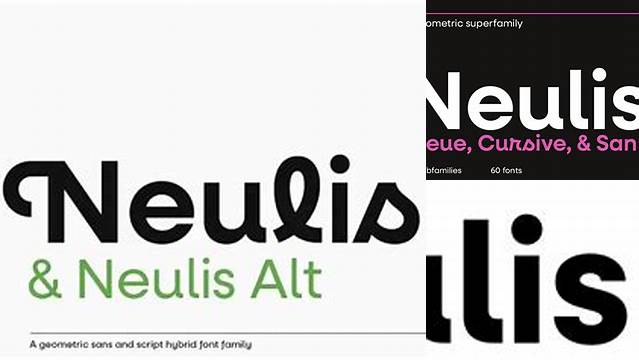
1. What is Neulis Neue Font?
So, what exactly is the Neulis Neue font? Well, it's a modern sans-serif typeface known for its clean lines and versatility. It's perfect for a wide range of design projects, from branding and logos to website design and print materials. The font exudes a contemporary feel, making it a favorite among designers looking to create a sleek and professional look. One of the things that sets Neulis Neue apart is its readability, making it suitable for both headlines and body text. Its balanced letterforms and carefully crafted kerning ensure that text looks great in any context. Whether you're working on a minimalist design or something more complex, Neulis Neue can adapt to your needs. Its neutrality also makes it a great choice for projects where you want the content to take center stage without being overshadowed by the font itself. Many designers appreciate how well it pairs with other fonts, giving you the flexibility to create unique and visually appealing designs. It’s the kind of font that quietly elevates your work without demanding too much attention, making it a staple in many designers' toolkits.
2. The Appeal of Neulis Neue
Why is the Neulis Neue font so appealing? There are several reasons! First off, its modern and clean design makes it super versatile. You can use it for just about anything – websites, logos, posters, you name it! The font’s legibility is another huge plus. It’s easy to read in both large and small sizes, which is essential for any font worth its salt. Plus, it has a certain elegance that makes your projects look polished and professional. Designers often choose Neulis Neue because it strikes a perfect balance between functionality and aesthetics. It’s not too flashy, but it’s not boring either. It just works! The subtle nuances in its letterforms give it character without sacrificing clarity. Whether you’re designing a corporate brochure or a trendy social media graphic, Neulis Neue can help you achieve the desired look. And let's not forget the fact that it's a sans-serif font, which automatically gives it a contemporary edge. In a world where design trends are constantly evolving, Neulis Neue manages to stay relevant and stylish. That’s why so many designers keep coming back to it for their projects. It’s a reliable and attractive choice that never disappoints.
5. Alternatives to Neulis Neue
Can't find a free version of Neulis Neue font? No worries! There are plenty of alternatives out there that offer a similar vibe. Fonts like Montserrat, Lato, and Open Sans are all excellent sans-serif options that are available for free on Google Fonts. These fonts share Neulis Neue's clean and modern aesthetic, making them great substitutes for various design projects. Montserrat, for example, has a slightly more geometric feel, while Lato is known for its warm and friendly appearance. Open Sans is another versatile option that works well in a wide range of contexts. When choosing an alternative, consider the overall tone and style you're trying to achieve in your design. Experiment with different fonts to see which one best complements your project. You might even discover a new favorite! Don’t be afraid to mix and match fonts to create unique and visually interesting designs. The key is to find fonts that work well together and enhance the overall message you're trying to convey. With so many great free fonts available, you're sure to find the perfect alternative to Neulis Neue for your next project.
8. Using Neulis Neue in Graphic Design
Okay, you've got Neulis Neue font installed – now what? Time to put it to work in your graphic design projects! This font is incredibly versatile, so the possibilities are endless. Use it for logos, posters, website headers, business cards, and more. Its clean and modern aesthetic makes it suitable for a wide range of design styles. When using Neulis Neue, pay attention to typography best practices. Adjust the kerning and leading to ensure that your text is legible and visually appealing. Experiment with different font weights to create visual hierarchy and emphasis. Consider pairing Neulis Neue with other fonts to create interesting and dynamic designs. A classic serif font can provide a nice contrast to Neulis Neue's sans-serif style. Don't be afraid to get creative and experiment with different design elements. The key is to find a balance that works well for your project. Whether you're designing a minimalist logo or a complex poster, Neulis Neue can help you achieve the desired look. So go ahead, unleash your creativity and see what amazing things you can create with this versatile font!
9. Pairing Neulis Neue with Other Fonts
One of the cool things about the Neulis Neue font is how well it plays with others. Pairing fonts can be tricky, but when done right, it can elevate your design to the next level. For a classic and sophisticated look, try pairing Neulis Neue with a serif font like Times New Roman or Garamond. The contrast between the sans-serif and serif styles can create a visually appealing and balanced design. If you're going for a more modern and minimalist look, try pairing Neulis Neue with another sans-serif font like Open Sans or Lato. Just make sure the two fonts have enough contrast to avoid looking too similar. Another option is to use different weights of Neulis Neue itself. For example, you could use the bold weight for headlines and the regular weight for body text. This can create a cohesive and visually appealing design. When pairing fonts, it's important to consider the overall tone and style you're trying to achieve. Experiment with different combinations to see what works best for your project. Don't be afraid to break the rules and try something unexpected. The key is to have fun and create a design that you're proud of!
30. The Timeless Appeal of Neulis Neue
The Neulis Neue font has a timeless appeal that transcends fleeting design trends. Its clean lines, balanced letterforms, and versatility make it a classic choice for designers. While design trends may come and go, Neulis Neue remains a reliable and trustworthy option. Its enduring appeal ensures that it will continue to be used in various projects for years to come. The font's ability to adapt to different design styles and branding requirements contributes to its longevity. With Neulis Neue, you can create designs that are both modern and timeless.